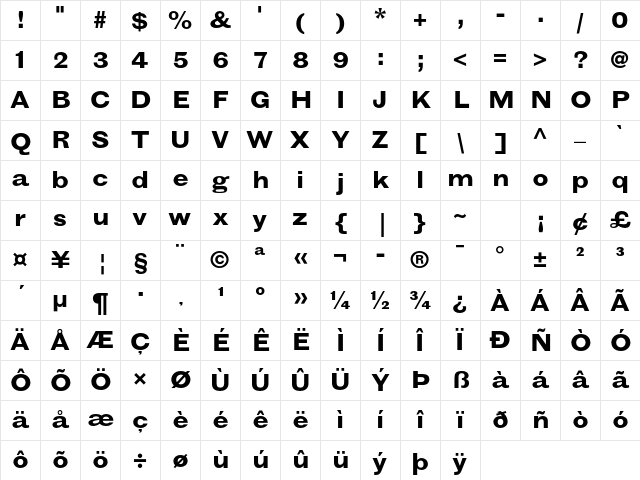
Grotesque MT Std Bold Extended
Style: Bold Extended
Designer: Unknown
Complete Grotesque MT Std Bold Extended glyph index. Displaying only characters natively supported by Grotesque MT Std Bold Extended font.
Design Context for Grotesque MT Std
Grotesque MT Std is a composed and adaptable typeface that performs quietly and consistently across a wide range of design contexts. Its bold stroke weight gives it real presence on the page.